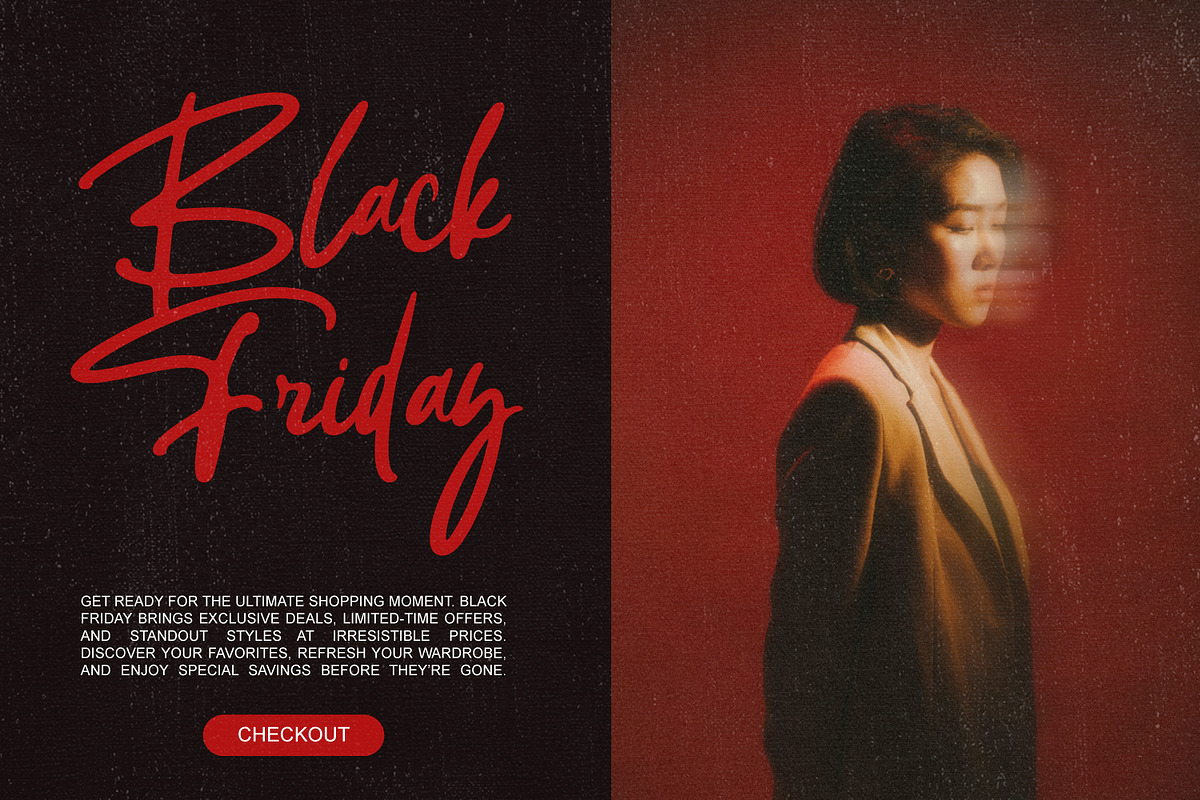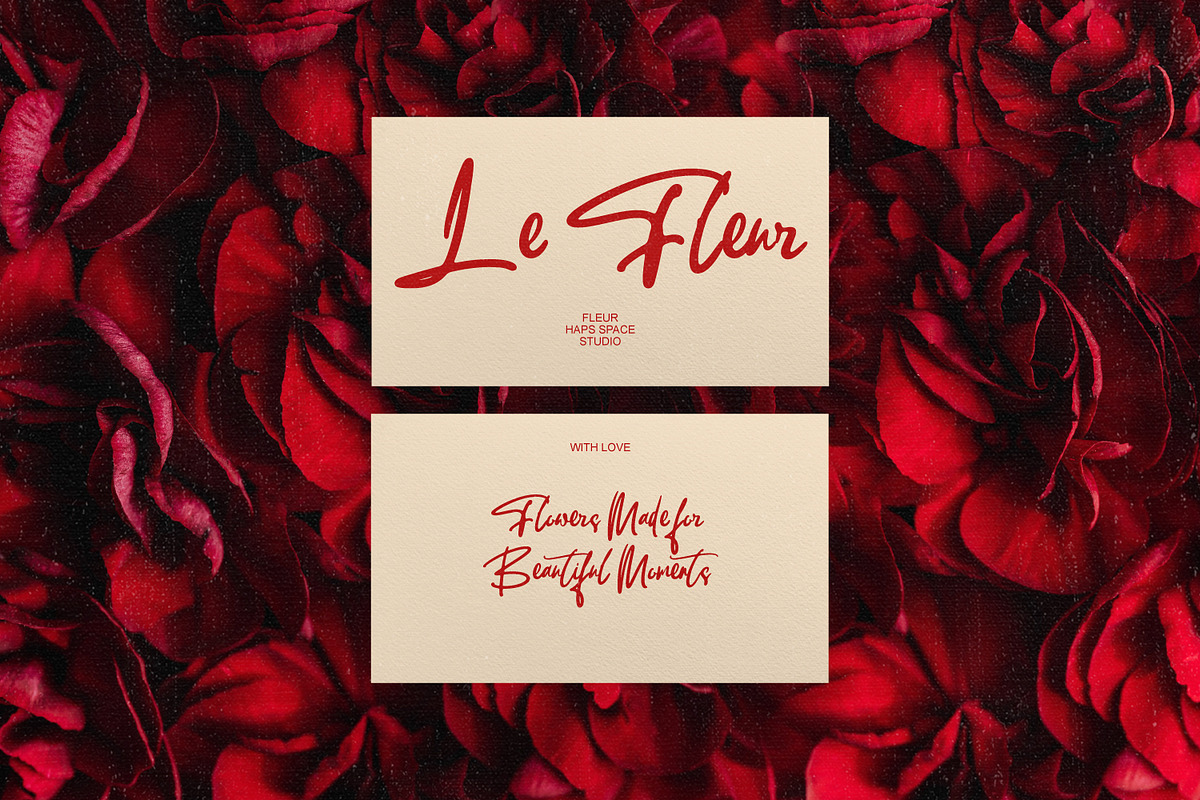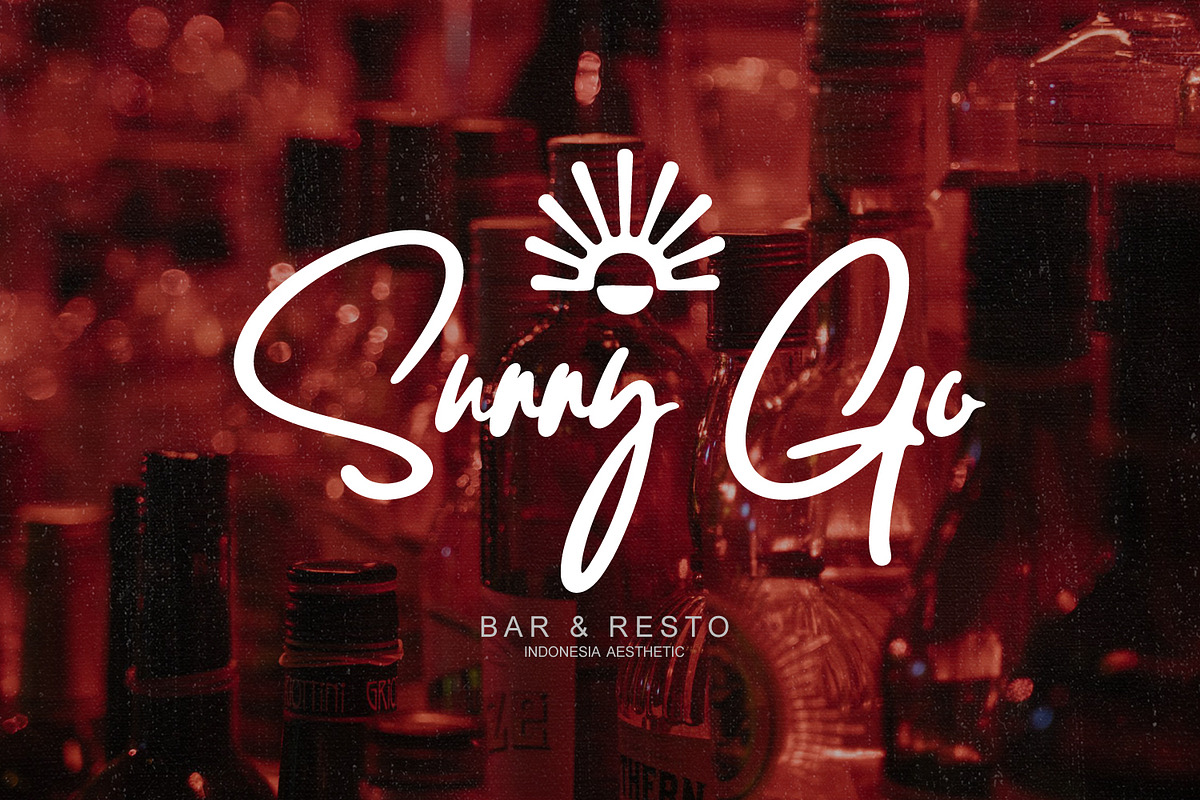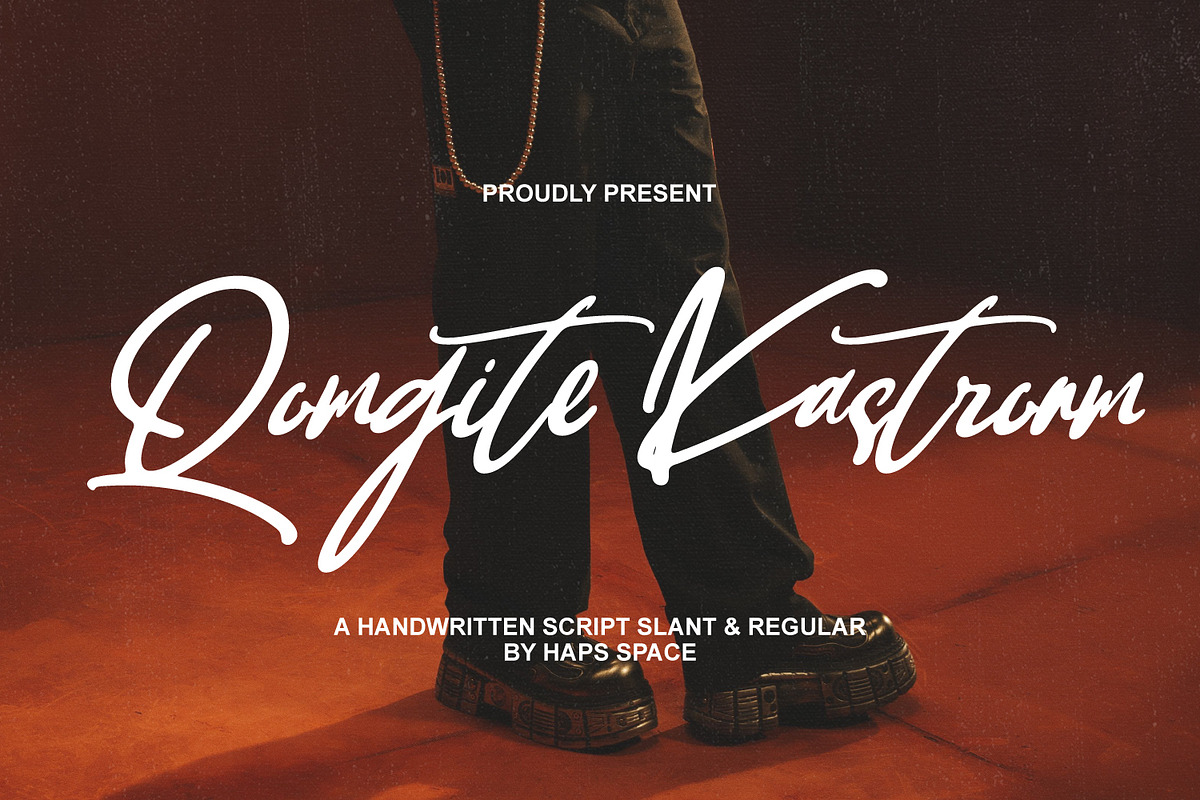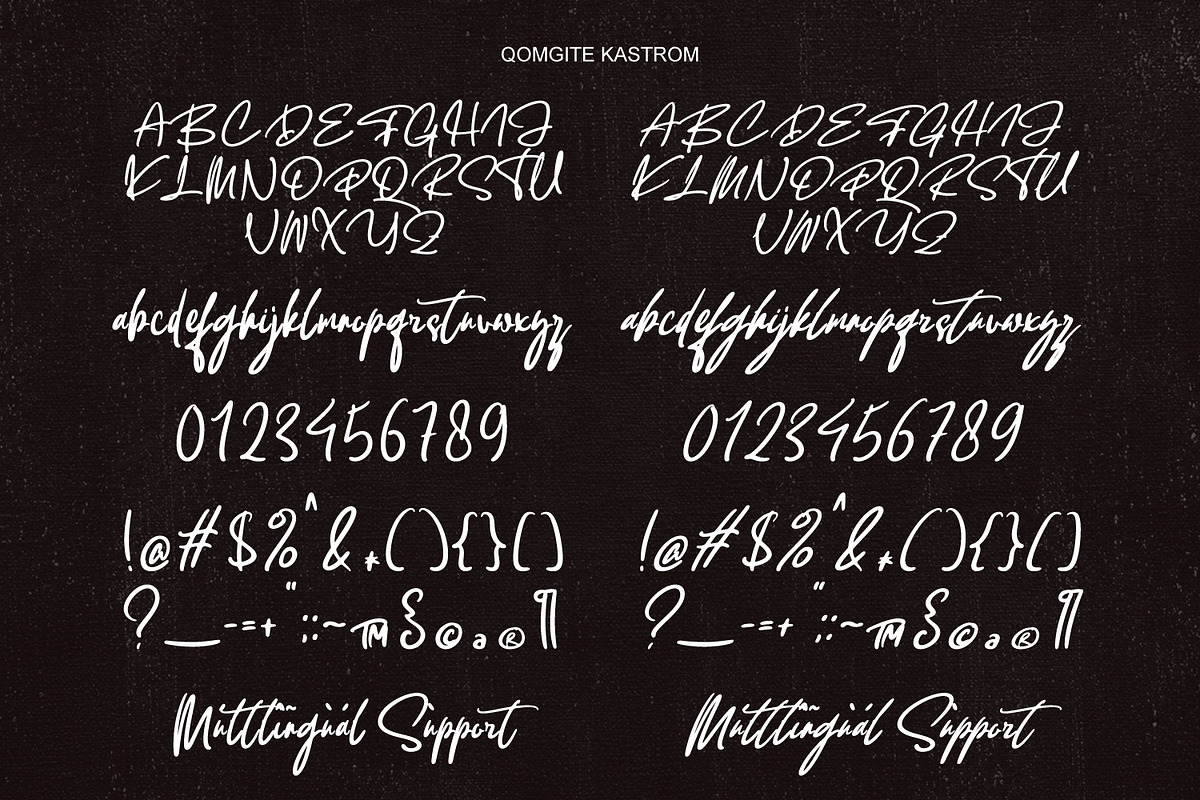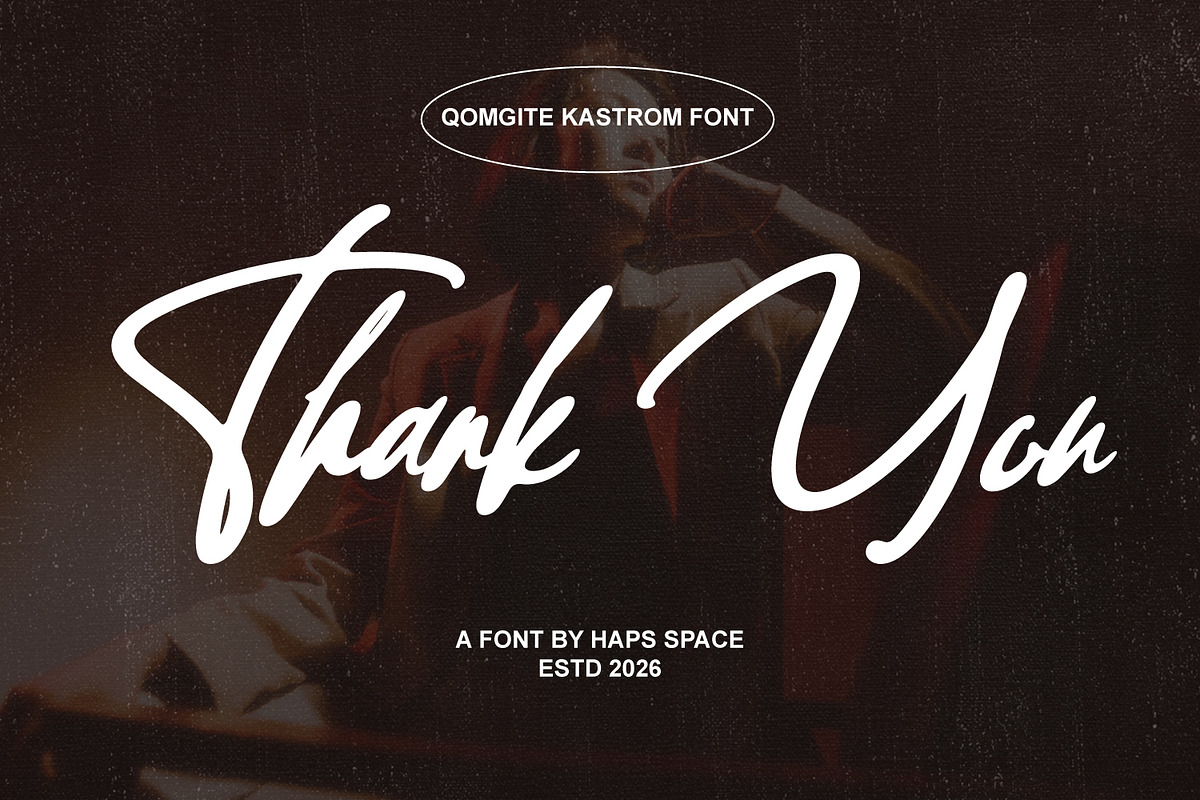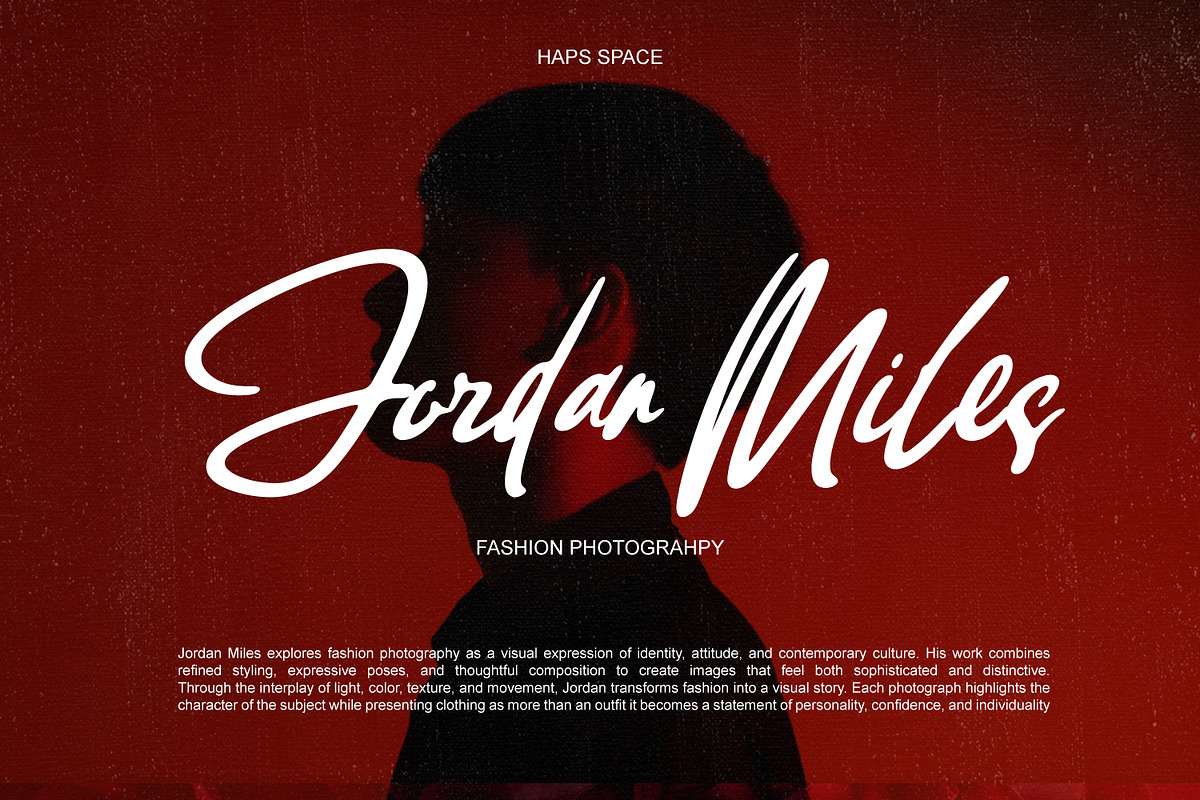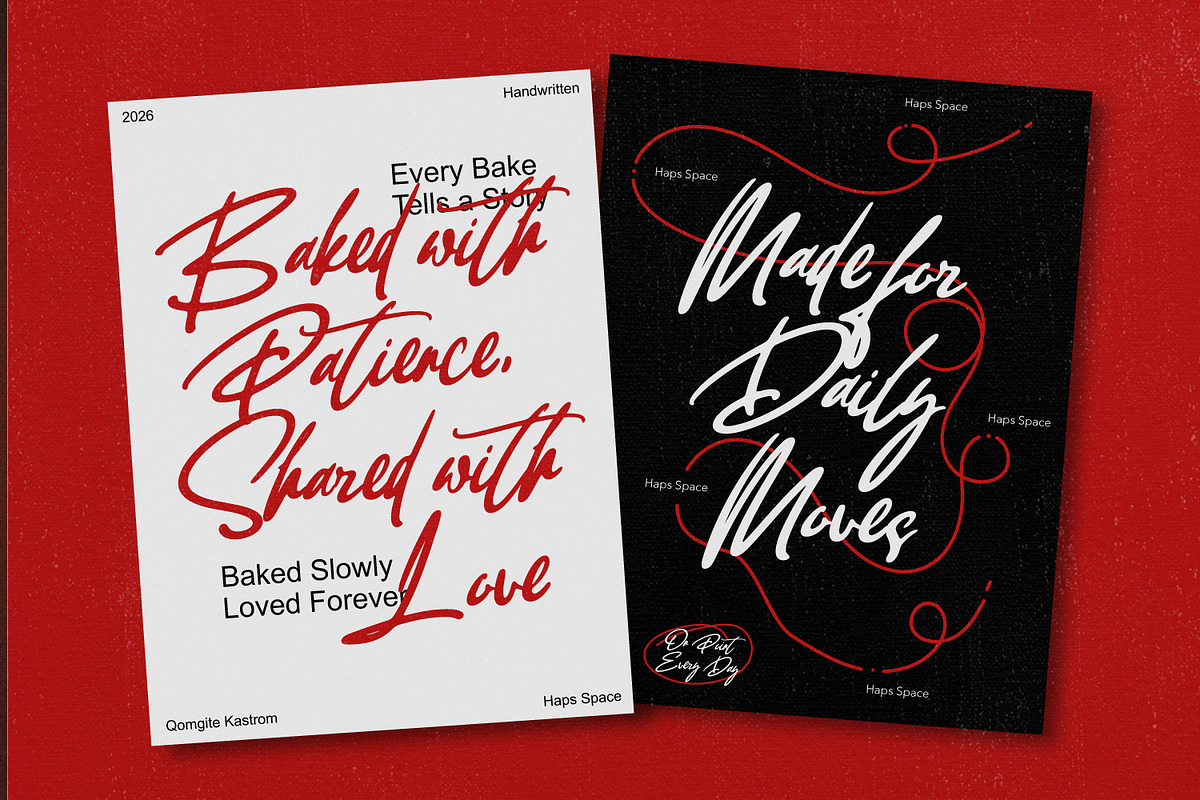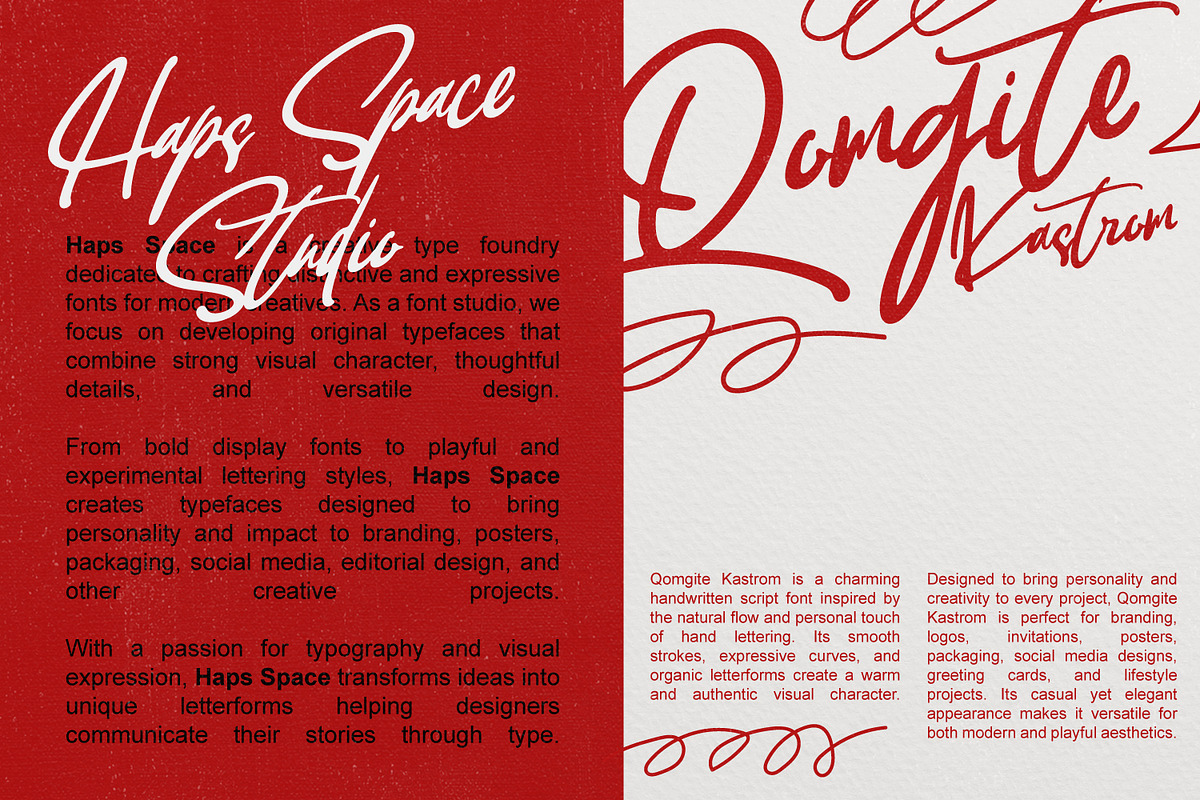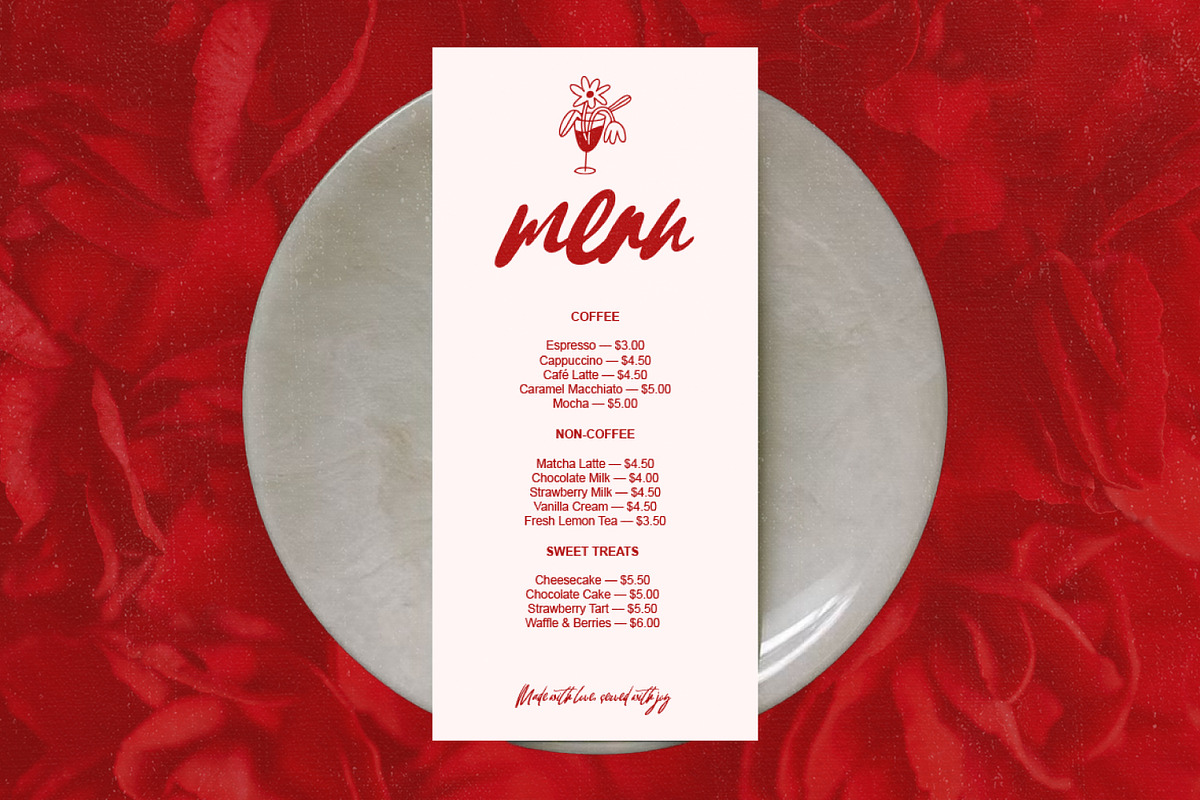
Qomgite Kastrom Handwritten Script
Dangite Kastrom is a stylish, edgy handwritten script font designed to bring raw urban energy, modern attitude, and fluid motion to your creative projects. Featuring dynamic cursive strokes, fast-flowing loops, and two versatile styles (Slant & Regular), this typeface captures a bold street-style aesthetic that instantly commands attention.
Crafted with high attention to detail, Dangite Kastrom is ideal for design layouts that require a expressive, high-impact, and contemporary artistic touch.
2 Styles Included: Slant and Regular versions for dynamic typographic layouts.
Complete Character Set: Includes full Uppercase and Lowercase handwritten letterforms.
Numbers & Punctuation: Complete set of numerals, standard symbols, and expressive punctuation marks.
Smooth Cursive Flow: Natural handwriting rhythm with fluid stroke connections.
Multilingual Support: Accented characters supporting various European and Latin-based languages.
PUA Encoded: Fully accessible and easy to use without requiring complex design software.
Ideal Applications:
Music & Entertainment Branding: Standout typography for album covers, music festival posters, band logos, and DJ banners.
Editorial & Magazine Layouts: Eye-catching titles for lifestyle magazines, lookbooks, digital publications, and article headers.
Social Media & Content Creation: Dynamic overlays for YouTube thumbnails, Instagram reels, TikTok graphics, and promo banners.
Packaging & Goods: Bold branding for street-style accessories, skate decks, energy drinks, and artisanal products.
Print & Merchandise Assets: Distinctive lettering for sticker packs, posters, wall art prints, and custom stationery.